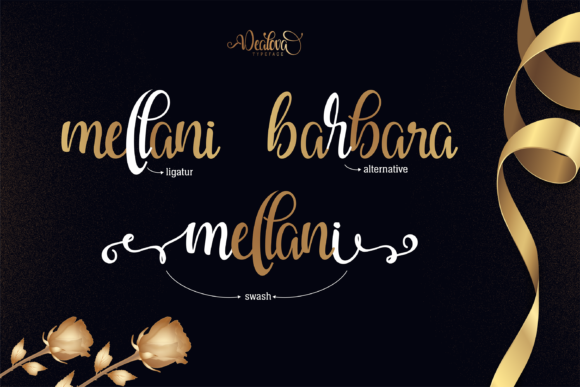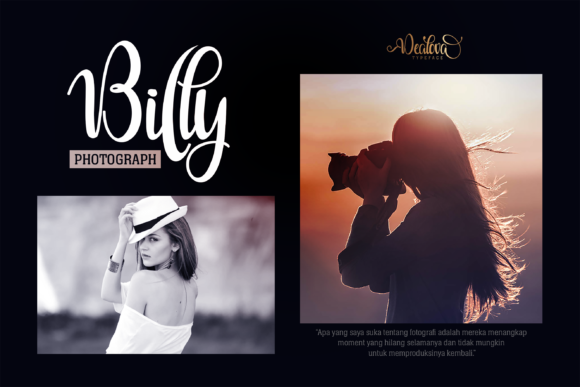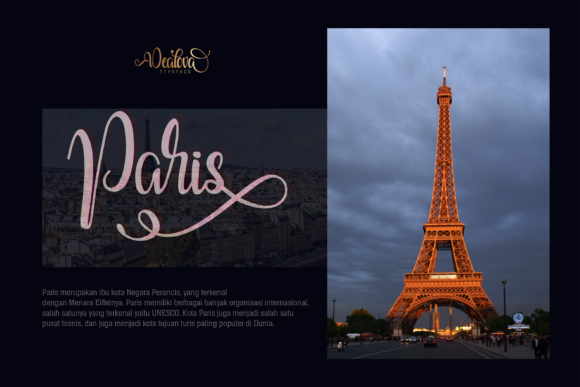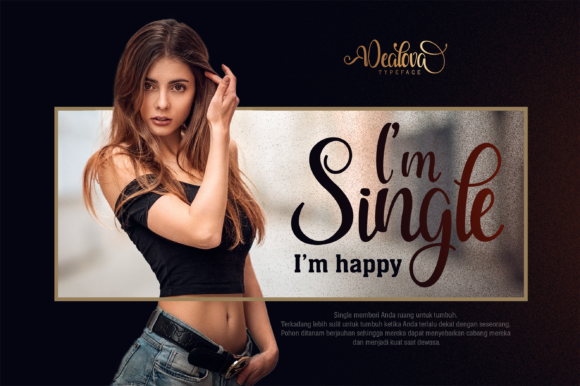
Introducing Dealova Font: The Ultimate Modern Script Font for Designers and Crafters
Are you tired of using the same old fonts for your designs? Do you want to add a touch of elegance and sophistication to your projects? Look no further than the Dealova Font! This fresh and modern script font is perfect for designers and crafters who want to create stunning visual content that stands out from the crowd.
What is Dealova Font?
The Dealova Font is a beautiful, handmade calligraphy-style script font that is designed to add a personal touch to your designs. Its unique and elegant style makes it perfect for a wide range of projects, from invitations and greeting cards to branding materials, business cards, quotes, posters, logos, and more!
Key Features of Dealova Font
- Fresh and Modern Design: The Dealova Font boasts a fresh and modern design that is sure to impress. Its clean lines and elegant curves make it perfect for designs that require a touch of sophistication.
- Handmade Calligraphy Style: The font’s handmade calligraphy style gives it a personal and unique touch that sets it apart from other fonts.
- Amazing Decorative Characters: The Dealova Font includes amazing decorative characters that can be used to add a touch of elegance to your designs.
- Multipurpose: The font is perfect for a wide range of projects, including invitations, greeting cards, branding materials, business cards, quotes, posters, logos, and more!
Why Choose Dealova Font?
There are many reasons why designers and crafters should choose the Dealova Font for their projects. Here are just a few:
- Elegance and Sophistication: The Dealova Font adds a touch of elegance and sophistication to any design, making it perfect for projects that require a high level of professionalism.
- Unique and Personal: The font’s handmade calligraphy style and decorative characters make it unique and personal, allowing designers to add a personal touch to their projects.
The Dealova Font is a fresh and modern script font that is perfect for designers and crafters who want to add a touch of elegance and sophistication to their projects. Its handmade calligraphy style, amazing decorative characters, and multipurpose design make it a great choice for a wide range of projects. Whether you’re working on an invitation, greeting card, branding material, or something else, the Dealova Font is sure to impress. So why wait? Download the Dealova Font today and start creating stunning visual content that stands out from the crowd!
- Pairing Fonts: For best results, pair the Dealova Font with other fonts that complement its elegant and sophisticated style.
- Color Schemes: Choose a color scheme that complements the font’s elegant style, such as pastel colors, neutral tones, or rich jewel tones.